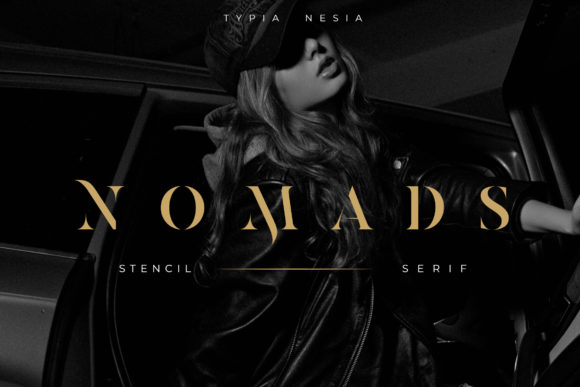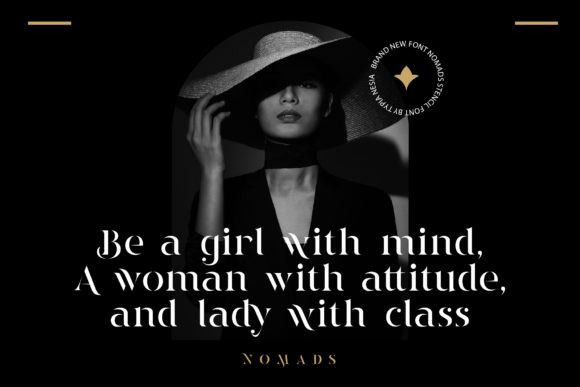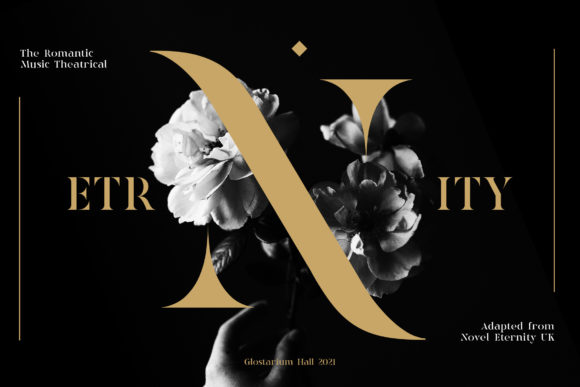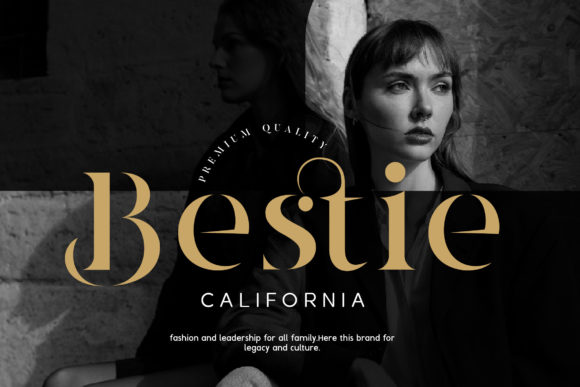
Nomads Stencil Font
About the Nomads Stencil Font
Explore the possibilities with Nomads Stencil Font, a font that offers both beauty and functionality. Nomads Stencil is a luxurious and stylish serif font. It is PUA encoded which means you can access all of the amazing glyphs and ligatures with ease! Add it confidently to your favorite creations and let yourself be amazed by the outcome generated.
Nomads Stencil’s strong serifs and confident stroke weights make it ideal for headlines, logos, and short, impactful text on branding materials like business cards or packaging. Its luxurious feel also suits posters and invitations where a touch of elegance is desired. However, its decorative nature makes it less suitable for body text or UI elements requiring high readability. Avoid using it for long paragraphs or website copy.
The font projects a bold and sophisticated personality. To complement this, consider pairing Nomads Stencil with a clean sans-serif like Montserrat for body copy or a minimalist geometric sans-serif like Futura for a modern contrast. For a more traditional feel, a neutral serif such as Garamond can create a balanced and harmonious pairing.
Pairing it with a playful script font might also work for specific applications, depending on the overall brand aesthetic, but should be carefully considered to avoid visual clash. Remember to maintain sufficient contrast in size and weight between the fonts for improved readability.
Nomads Stencil Font Usage Examples
Nomads Stencil Font Example